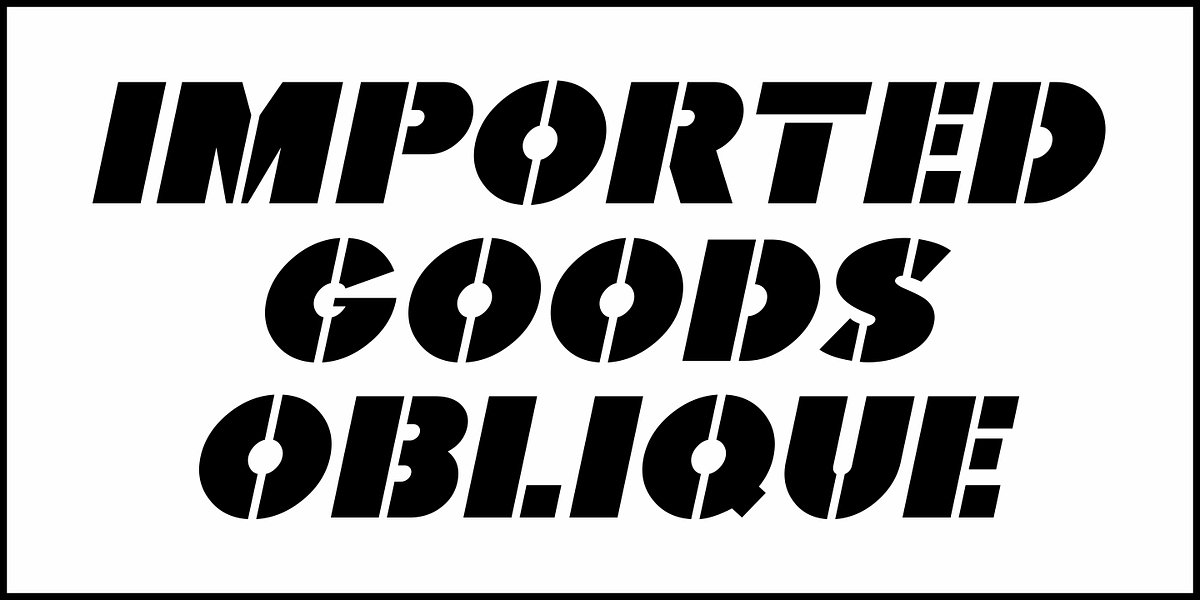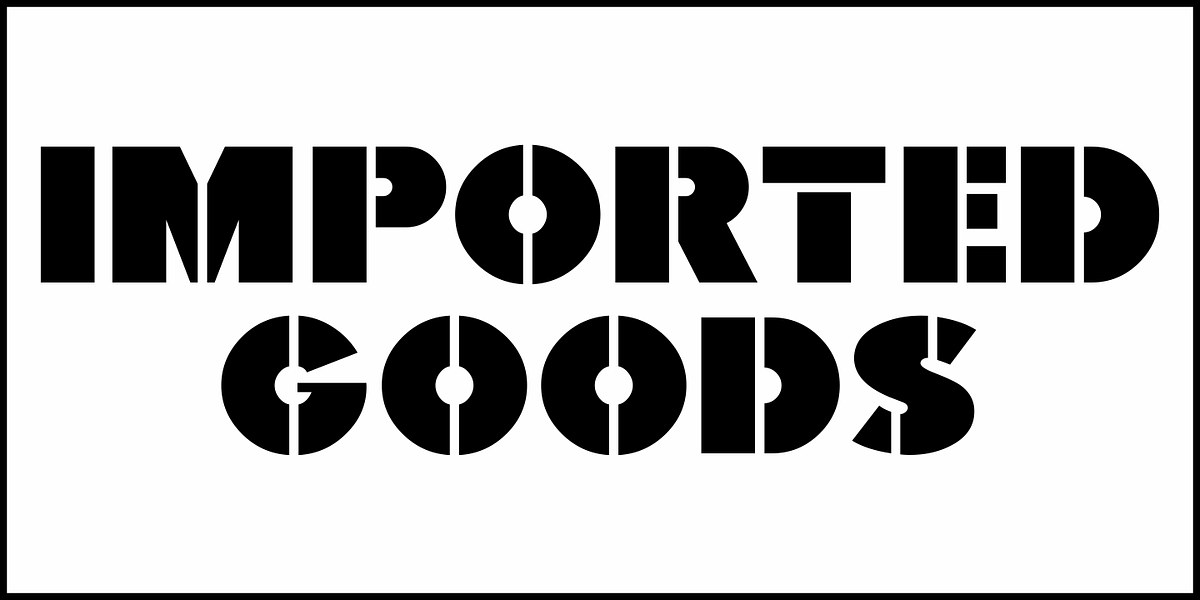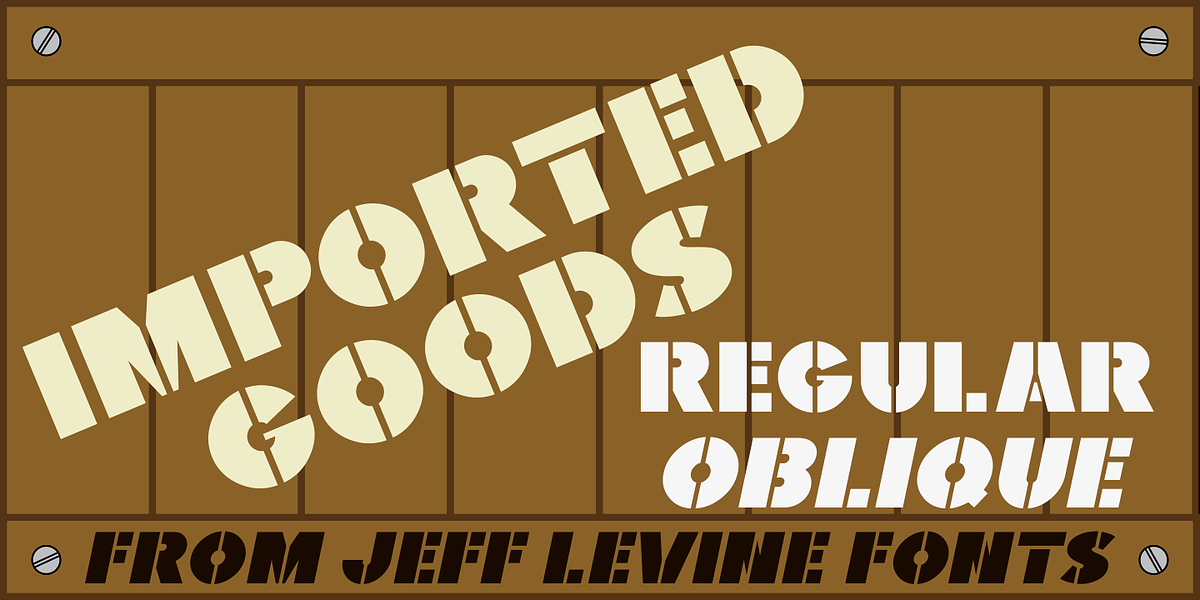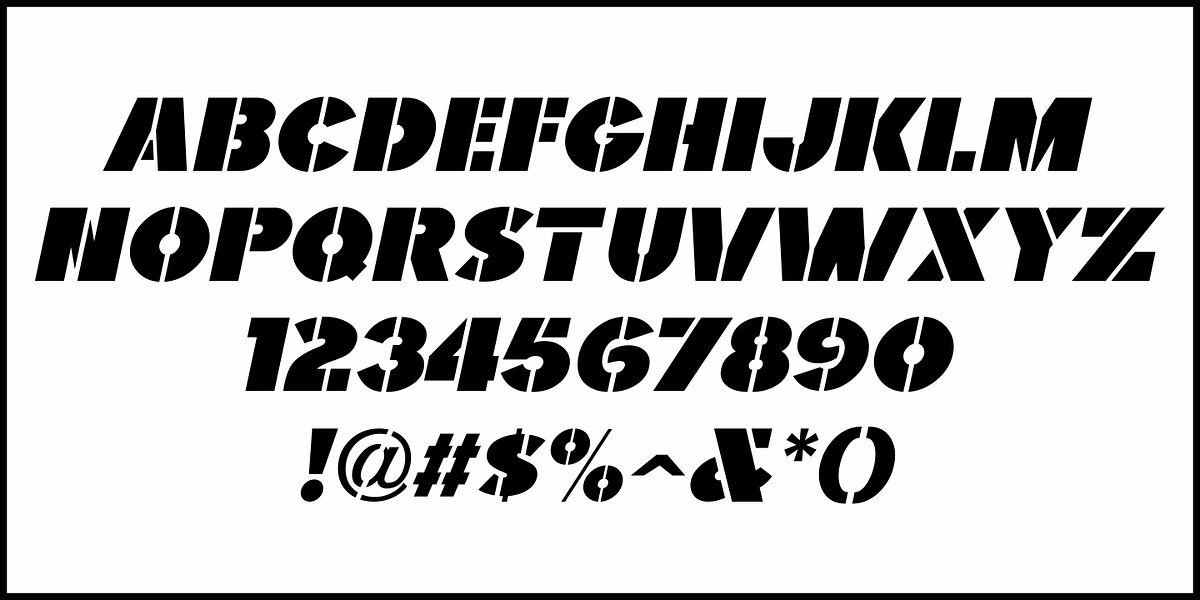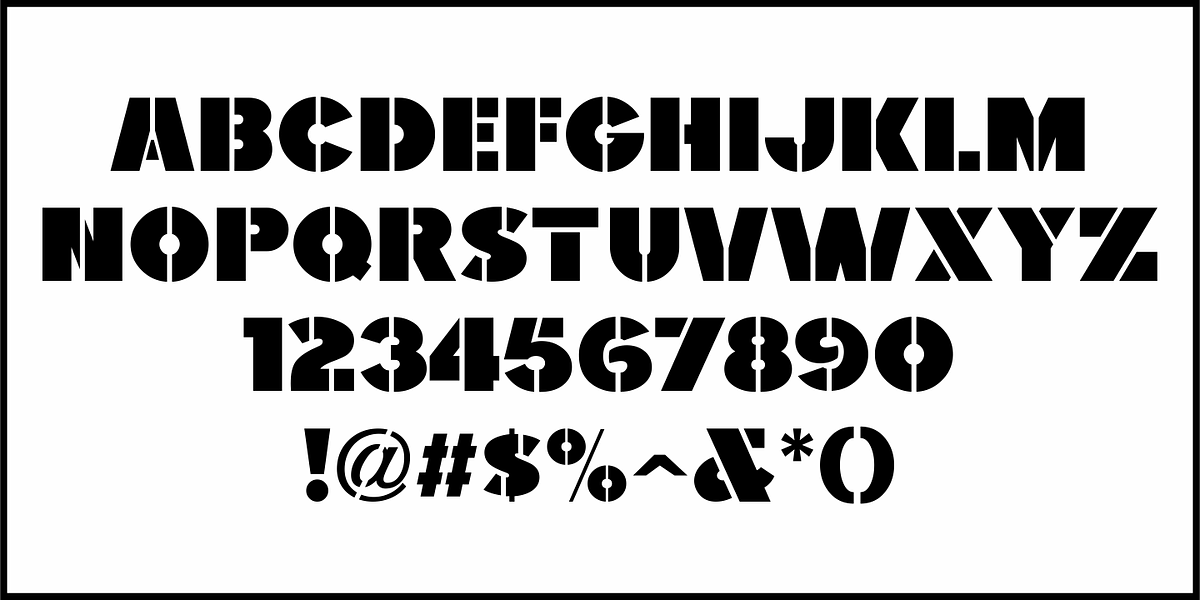
Imported Goods JNL
In the December, 1947 issue of Modern Screen magazine, a feature article showcased actress Deborah Kerr with the title “Imported”.
The typography used for the headline of the article was a hand lettered, extra-bold, sans serif stencil design.
This lettering became the inspiration for Imported Goods JNL, which is now available in both regular and oblique versions.